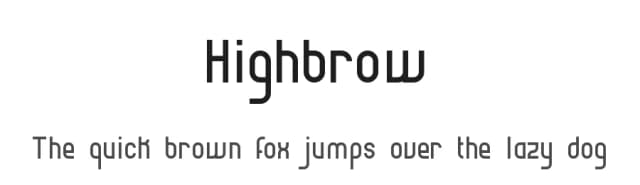
About Slim Font
Slim is a sans-serif font designed by Aquaflame Fonts. It includes 56 glyphs, a regular weight, TTF (TrueType) format, and 89 languages. Slim is free to download; check the license details on this page before commercial use. Sans-serif fonts like Slim work best for clean body text, user interfaces, branding, and modern layouts.
Slim Font is a versatile sans-serif font that works for both headings and body text. Pair it with a contrasting serif or slab serif font to add visual interest and a clear distinction between titles and body copy.
Slim Font
Slim Font is a sans serif typeface by Aquaflame Fonts, ideal for logos, invitations, branding, and creative projects.